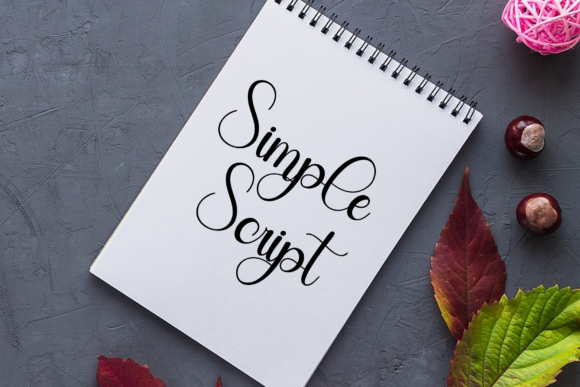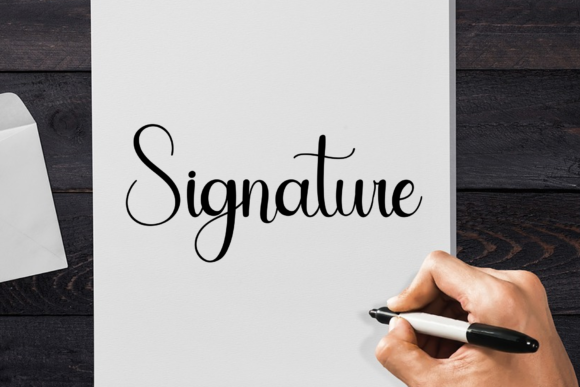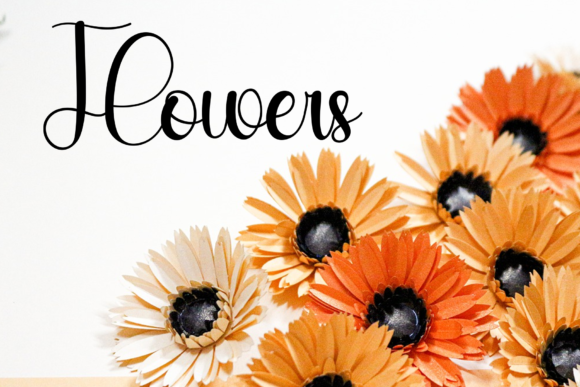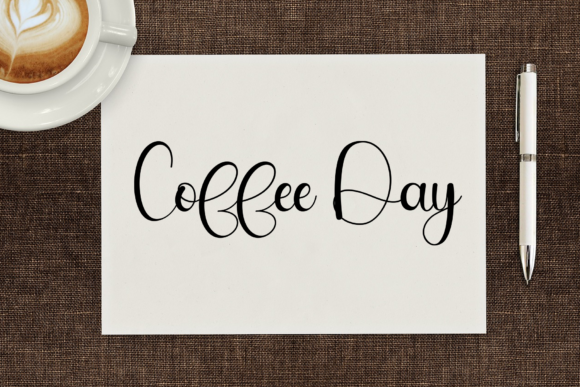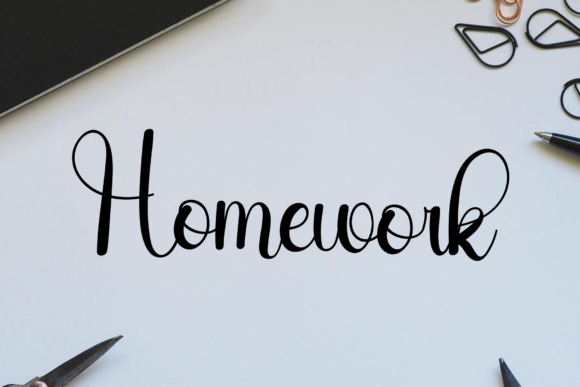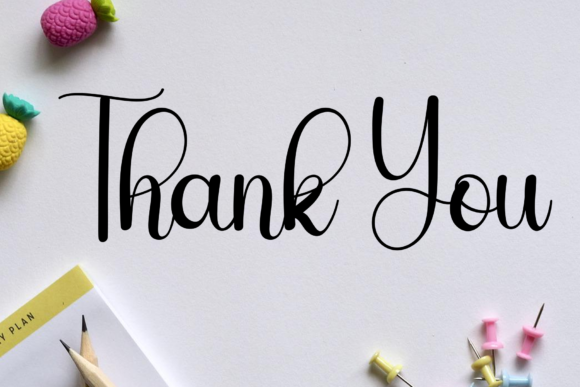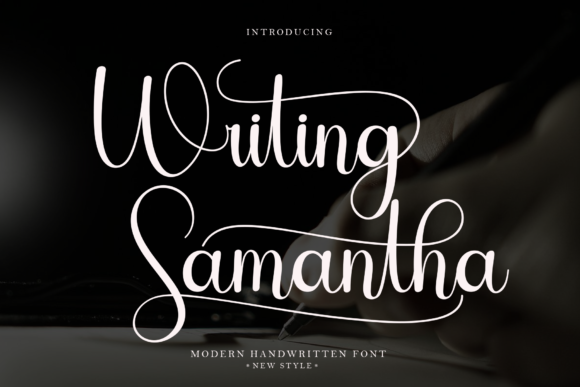
Writing Samantha Font
About Writing Samantha Font
Introducing “Writing Samantha,” a unique, round-lettered handwritten font meticulously crafted to deliver distinctive and desired results. This font offers a versatile solution, perfect for writing titles, invitations, letters, and various other types of products, providing a personalized and charming touch.
Writing Samantha’s round-lettered style sets it apart, adding a unique and engaging quality to your text. The carefully crafted design ensures that each character contributes to the overall aesthetic, making it a suitable choice for a variety of creative applications. Whether applied to titles, invitations, or other textual elements, Writing Samantha brings a personalized and charming quality to your projects.
Imagine Writing Samantha gracing your invitations, creating a warm and welcoming atmosphere for your events. Picture it adding a unique touch to titles, making them stand out with a round-lettered charm. The font’s distinctive style ensures that it brings a personalized and engaging feel to different types of products, making it a valuable asset for a range of design needs.
In essence, Writing Samantha is more than just a font; it’s a design element that brings a unique and round-lettered handwritten style to your projects. Its carefully crafted design is an invitation to explore creative possibilities and add a charming touch to your text. Choose Writing Samantha to infuse your designs with a personalized and engaging handwritten aesthetic, turning each project into a delightful expression of creativity.